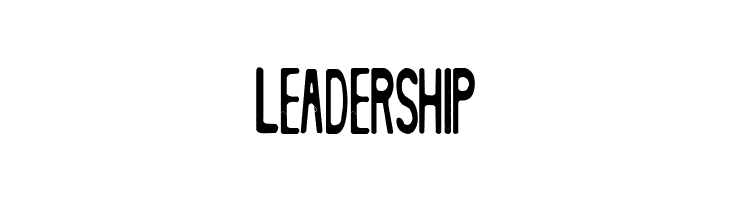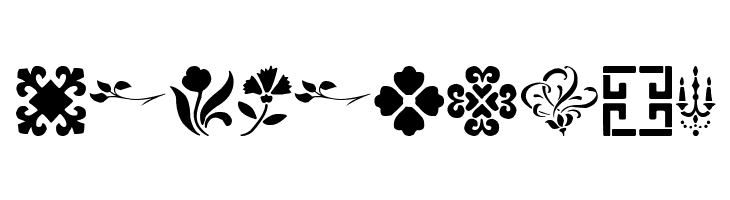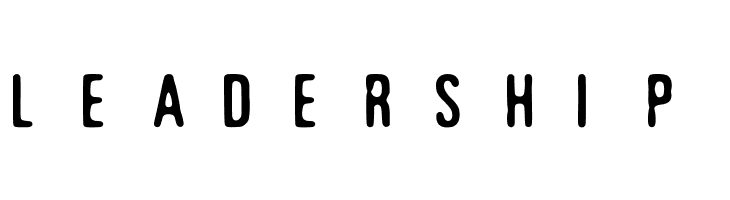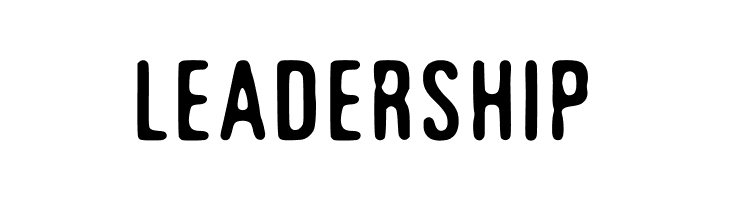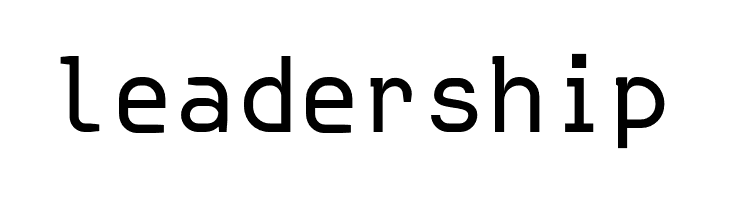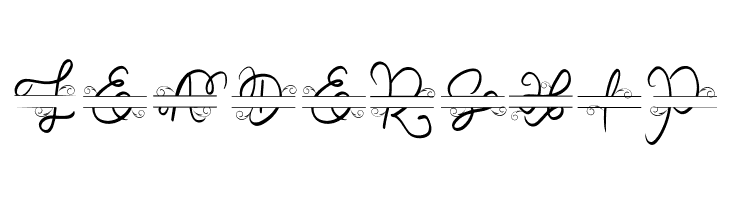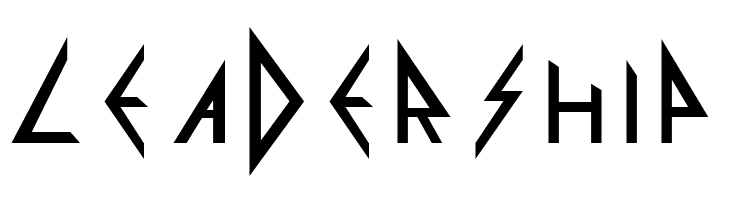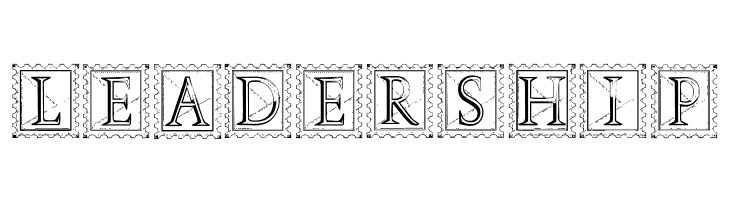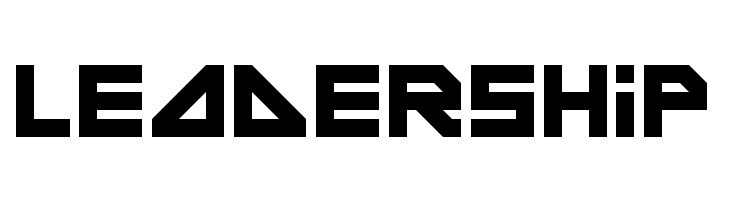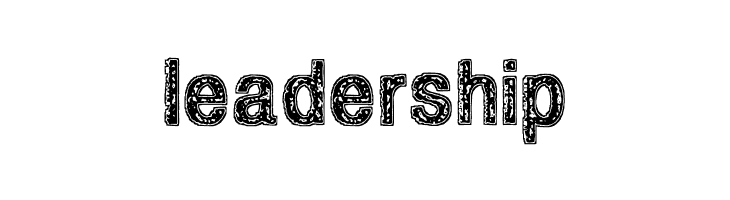
A dynamic handwritten font with elegant, flowing cursive strokes.
A modern, elegant script font with flowing curves and graceful loops.
A playful, hand-drawn script font with bold, rounded characters.
A bold, geometric Art Deco font with angular lines and a vintage flair.
An ornate, decorative font with intricate patterns reminiscent of medieval manuscripts.
An ornate, decorative font with intricate swirls and flourishes, perfect for elegant designs.
Ornate stencil-style decorative glyphs with bold, intricate designs.
A geometric, Art Deco-inspired font with sharp angles and elegant curves.
A playful, bold font with exaggerated serifs and a whimsical style.
A decorative outline font with a modern and playful aesthetic.
A dynamic and fluid script font with elegant curves and a playful style.
A bold, expressive brush-style font with dynamic strokes and artistic flair.
Casual handwritten font with rounded, playful strokes.
A lively, cursive script font with elegant connections and dynamic contrast.
A lively, handwritten font with fluid, elongated strokes and a casual elegance.
A bold, handwritten font with fluid, cursive strokes and a playful style.
A bold, italic handwritten font with fluid, connected strokes.
A dynamic, handwritten cursive font with elegant slant and varied stroke thickness.
A lively and elegant script font with flowing curves and dynamic slant.
A lively, expressive script font with a modern, handwritten style.
A modern, geometric sans-serif font with a monospaced appearance.
A bold, decorative font with a unique striped pattern and vintage flair.
A distressed, monospaced font with a vintage, weathered look.
A bold, distressed font with a vintage, handmade feel.
A bold, distressed font with a textured, grunge-like appearance.
A bold, vintage-style font with ornamental serifs and a gothic flair.
A playful and elegant script font with flowing, cursive letterforms and medium contrast.